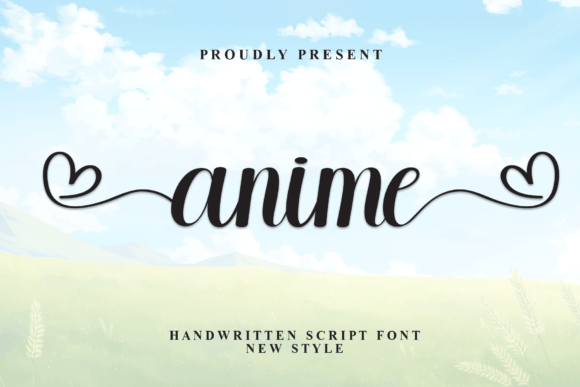
Adding a Touch of Whimsy: The Anime Font
Have you ever been stuck on a design project, frantically searching for the perfect font to convey your message? We’ve all been there – scrolling through font libraries, trying out different styles, and still not quite finding that elusive ‘wow’ factor. It was one such moment when I stumbled upon the Anime Font, and I knew I had found my new go-to font for adding a playful twist to my designs.
The Anime Font is a delightful, handwritten font that exudes a sweet and friendly vibe. Its cute and fun design makes it perfect for writing wedding invitations, greeting cards, or any other project that needs a dash of whimsy. Whether you’re a seasoned designer or just starting out, the Anime Font is a valuable addition to your toolkit – offering endless possibilities for creative expression and adding a personal touch to your work.
Anime Font Key Features
- Unique Characteristics: Anime Font features a distinctive, cursive style with exaggerated lines and flourishes, giving it a playful and energetic feel.
Designer Review: Anime Font
Overall, I found Anime Font to be a decent choice for those looking for a bold and playful font. The designer has done a great job in capturing the essence of anime style, and it shows in the font’s rounded edges and varied line widths. ✨
Here are some of the things that I think work well:
- Unique character set that includes a wide range of symbols and special characters.
- Support for multiple languages, making it a versatile font for various applications.
- Available in different weights and styles, allowing for more flexibility in design.
However, there are some limitations that I’d like to point out:
- Font may not be suitable for professional or formal applications due to its playful nature.
- Some characters may not render properly in certain font sizes or resolutions.
- Lack of a comprehensive documentation or style guide, which may make it difficult for users to use the font effectively.
- Not all styles are available for all weights, which can be frustrating.
Overall, I’d give Anime Font 3.5 out of 5 stars. While it’s a fun and creative font, its limitations may hold it back from being a top choice for serious design projects.
Common Use Cases for Anime Font
Anime Font is commonly used in:
- Graphic novels and manga-style comics.
- Video game titles and menus